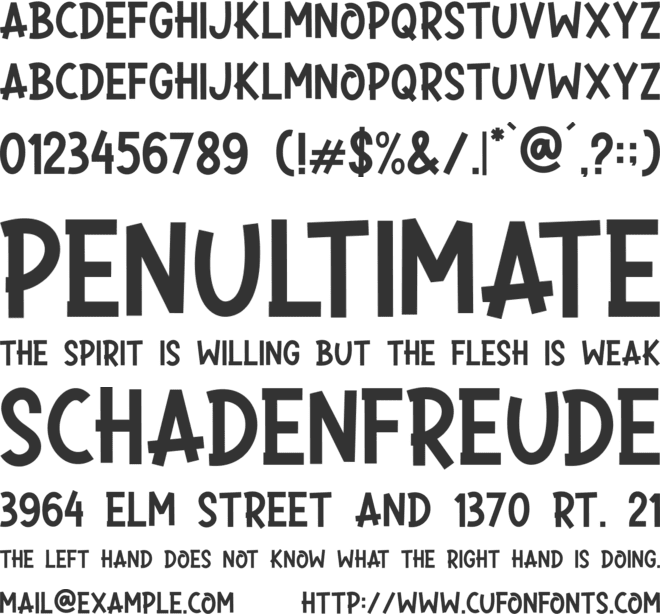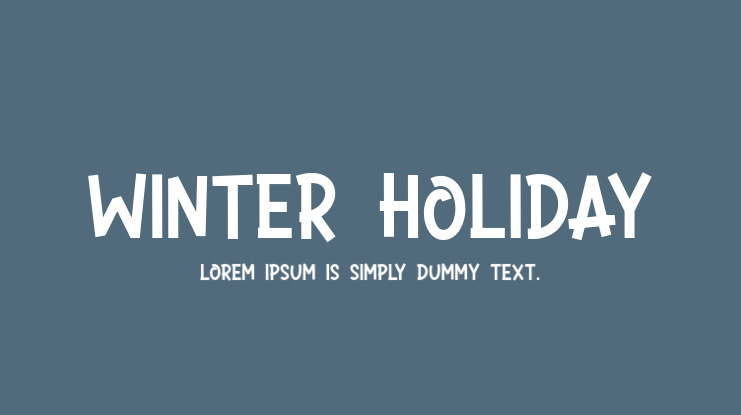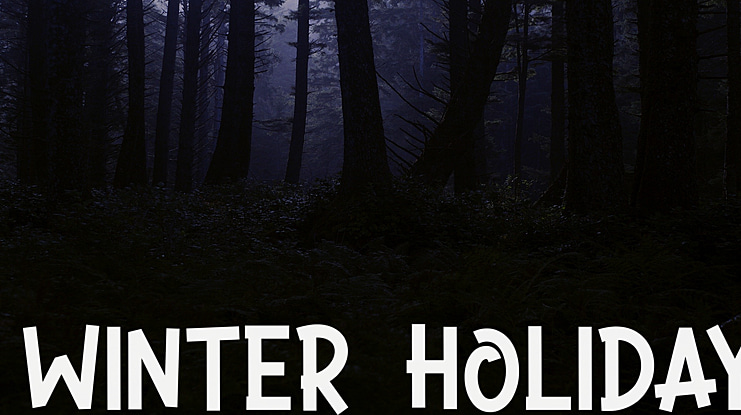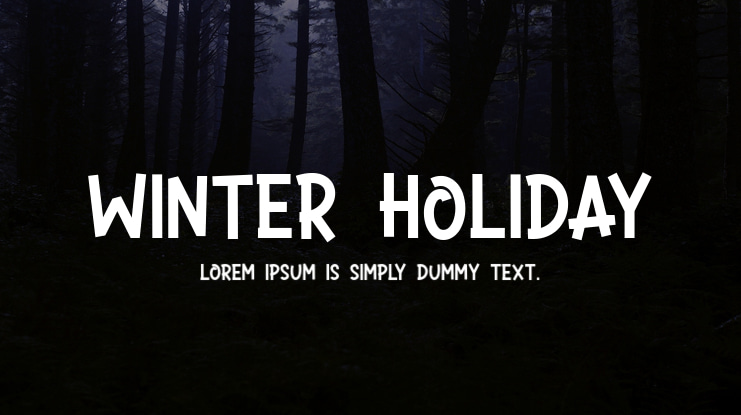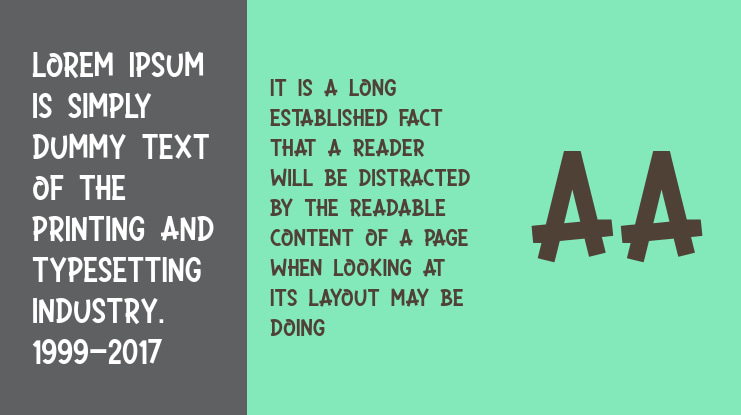
WINTER HOLIDAY Font
We proud presenting our new font.
Winter Holiday Font is playfull, display font.
This font would perfect for kids poster, flyer , cover children book, cartoon, comic and etc.
And you can use Jingle Bell font for quotes winter greeting cards ( Halloween, Christmas or New Year holidays) and etc.